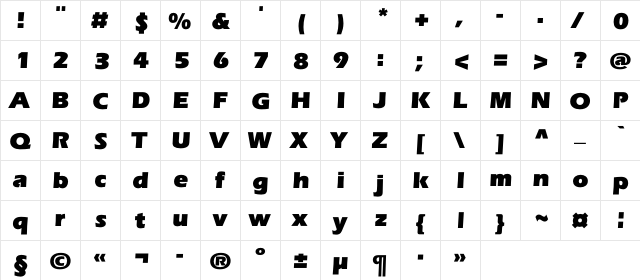
EverestC Bold
Design Context for EverestC Typeface
EverestC offers clean, dependable letterforms without strong stylistic allegiance, making it a practical choice for designers who need flexibility. Its bold stroke weight gives it real presence on the page.